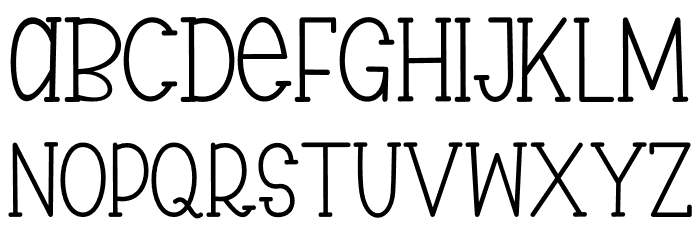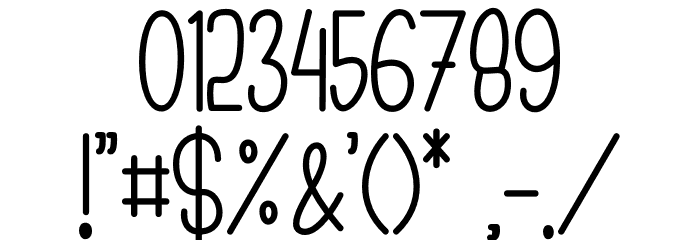
Pretty Panda Font
This playful and whimsical font features a unique blend of rounded and angular elements, creating a charming and approachable aesthetic. The uppercase letters are tall and slender, with a slight curve that adds a touch of elegance. The lowercase letters maintain a consistent style, with rounded edges that enhance the font's friendly appearance. Numbers are clear and easy to read, while special characters are designed with the same playful flair. The overall design is clean and modern, making it suitable for a variety of creative projects.
A playful, whimsical font with rounded and angular elements, perfect for creative projects.
- Font: Pretty Panda
- Proposed Projects: Ideal for children's books, playful branding, greeting cards, and creative invitations.
- Overall Style: Playful, Whimsical
- Use Case: Headlines, Logos, Creative Projects